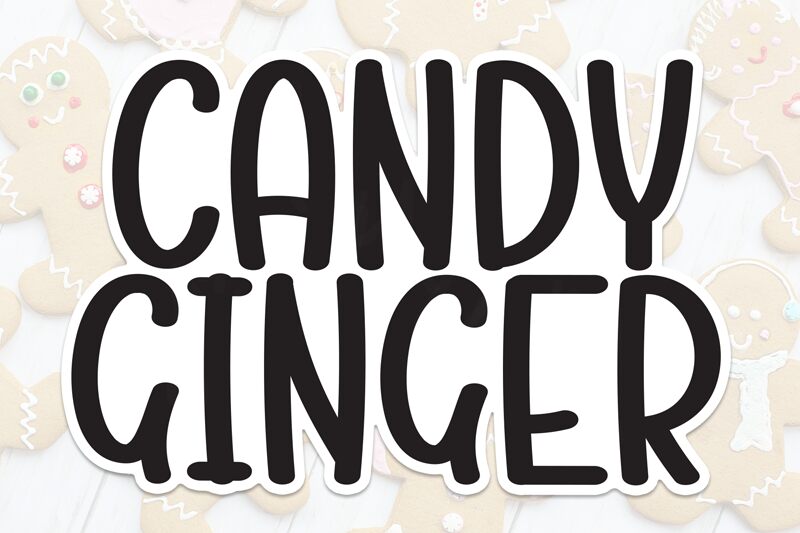
Candy Ginger
Candy Ginger font by Scratchones is a quirky, youthful, and whimsical handwritten font. With a condensed design and a hand-drawn appearance, it maintains an exceptional level of detail. Its playful nature combined with the casual vibe that it adds work well in all sorts of design settings.